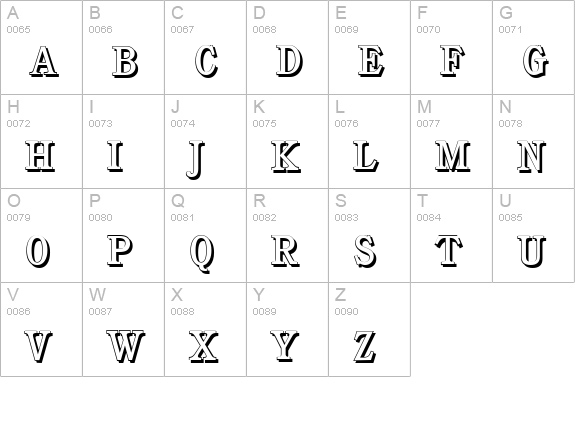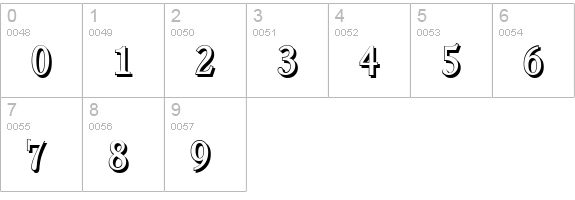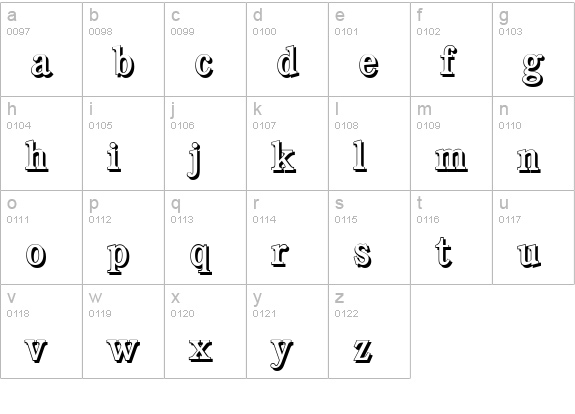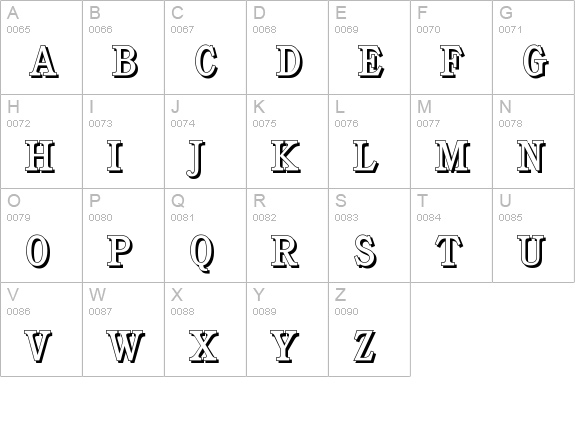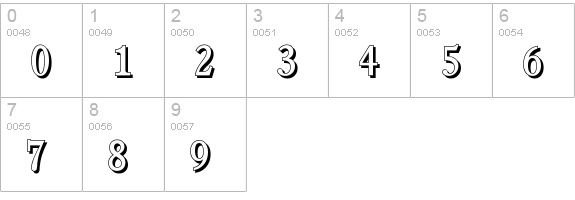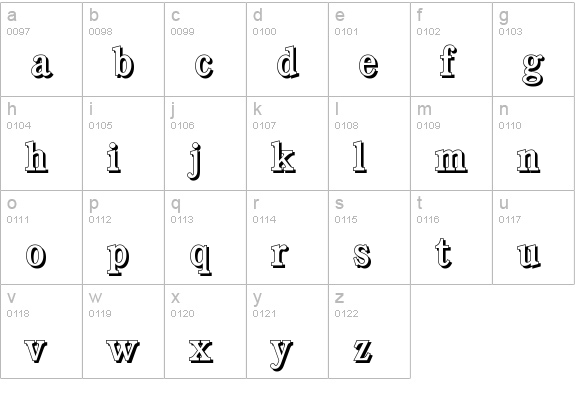
CalgaryShadow-Regular is the standard, neutral variant in the CalgaryShadow typeface family \xE2\x80\x94 well suited to general body text, paragraphs, and standard typographic work.
CalgaryShadow-Regular is a versatile and elegant display font that exudes a sense of modern sophistication. With its sleek lines and subtle shadow effect, this font is perfect for creating eye-catching headlines, logos, and branding materials. Whether you're designing a poster, website, or packaging, CalgaryShadow-Regular will add a touch of class to your project. The best part? CalgaryShadow-Regular is available for free download at FontsMarket.com. Simply visit the website to access this beautiful font and elevate your designs with its unique style. Don't miss out on the opportunity to enhance your creative projects with CalgaryShadow-Regular - download it today and start designing with flair!